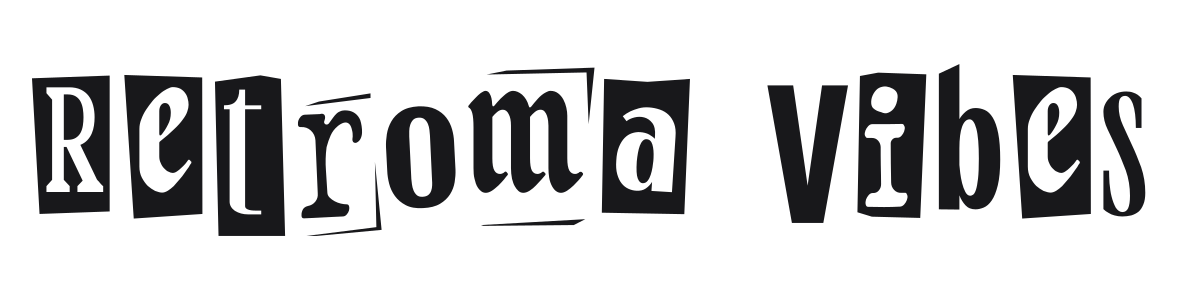
Retroma Vibes
Retroma Vibes is a ransom-note collage font that mixes serif, sans-serif, and blocked characters as if cut from different magazines and pasted together. Each letter carries its own weight, style, and background fill, making every word feel assembled rather than typed. It thrives anywhere chaos is the point: band posters, zine covers, and irreverent branding.